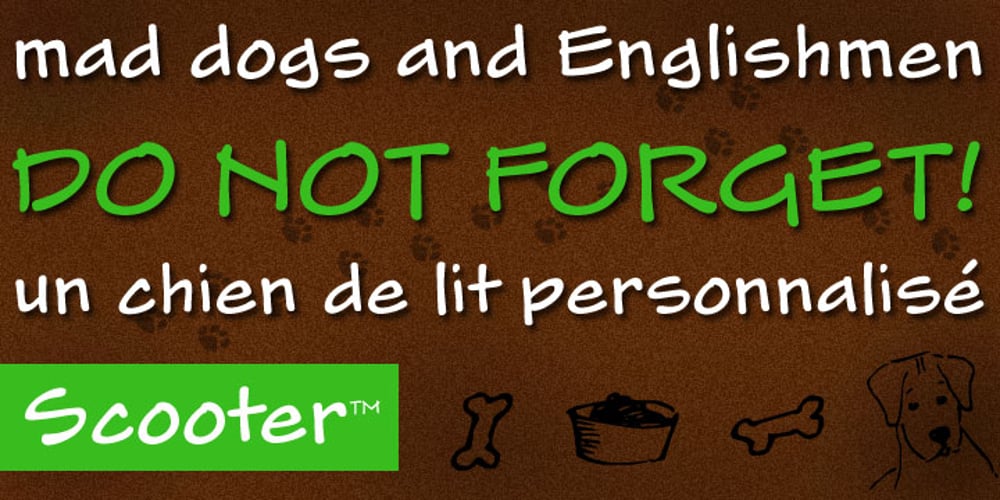
Scooter
Scooter font
Scooter Font Family was designed by Steve Matteson and published by Ascender. Scooter contains 1 styles and family package options. Scooter is an informal handwriting script named for a bashful but lovable yellow Labrador Retriever. The font is perfect for memos, fliers, cards and of course, a personalized dog bed. This font is great for making a wagging impression.